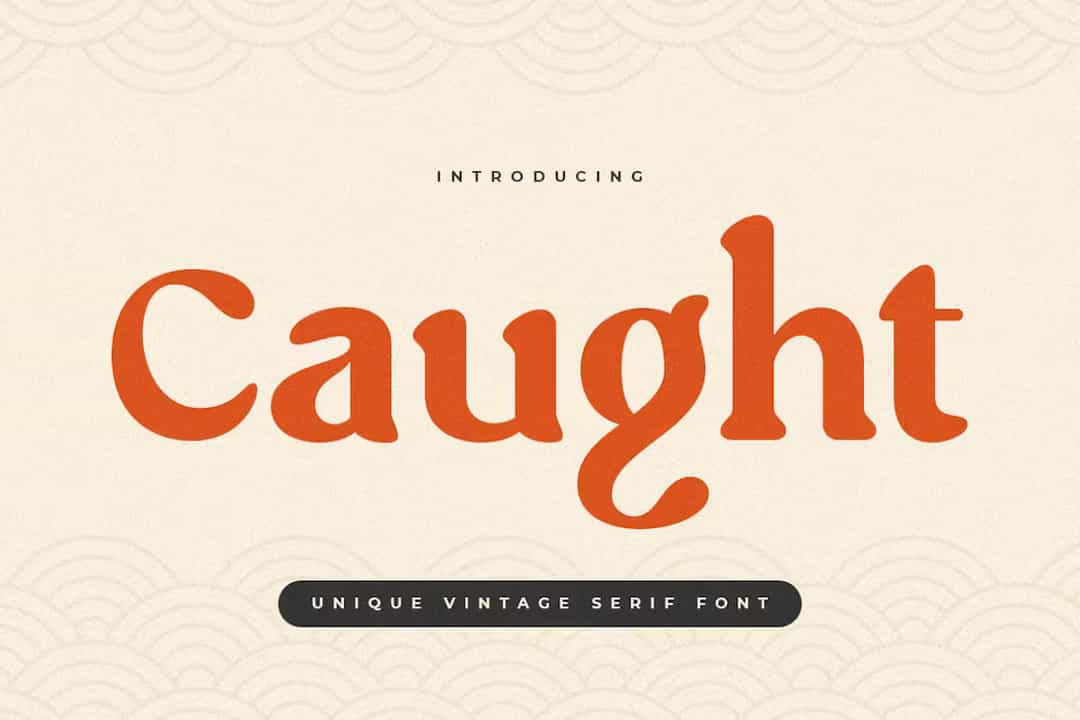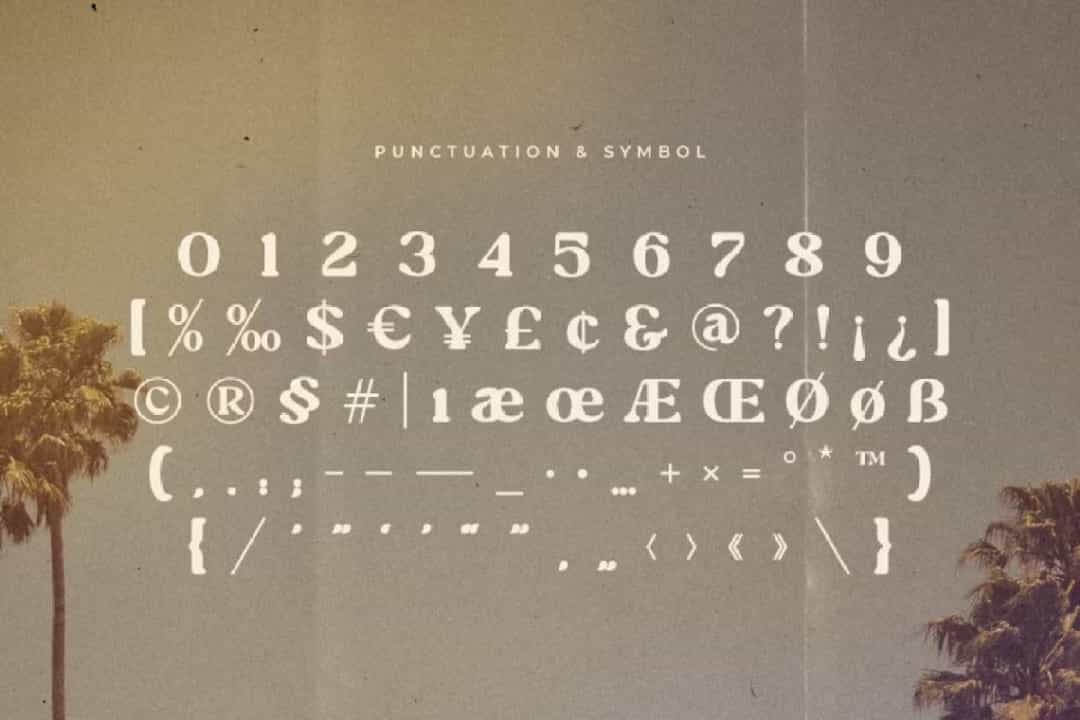
Discover Caught Font, part of the Serif Vintage collection—a versatile and unique font perfect for adding a personal touch to your projects. Download it for free and enjoy crafting designs with style, from invitations to social media posts. This font is available exclusively for personal use, giving you the freedom to create without limits. Unlock your creativity with Caught Font today!
Caught is a specially designed vintage serif font. This font is suitable for the branding project, logo, wedding design, social media post, advertisements, product packaging, product design, label, photography, watermark invitation, stationery, and any other projects that require a good level of readability.